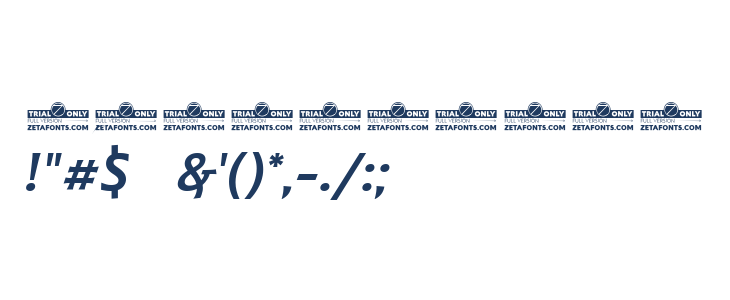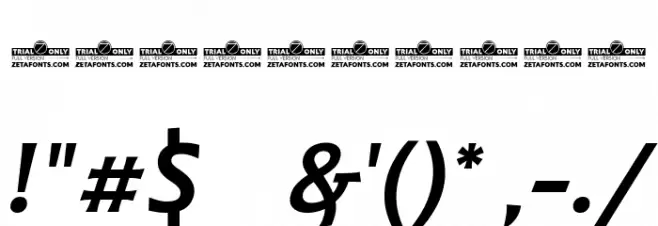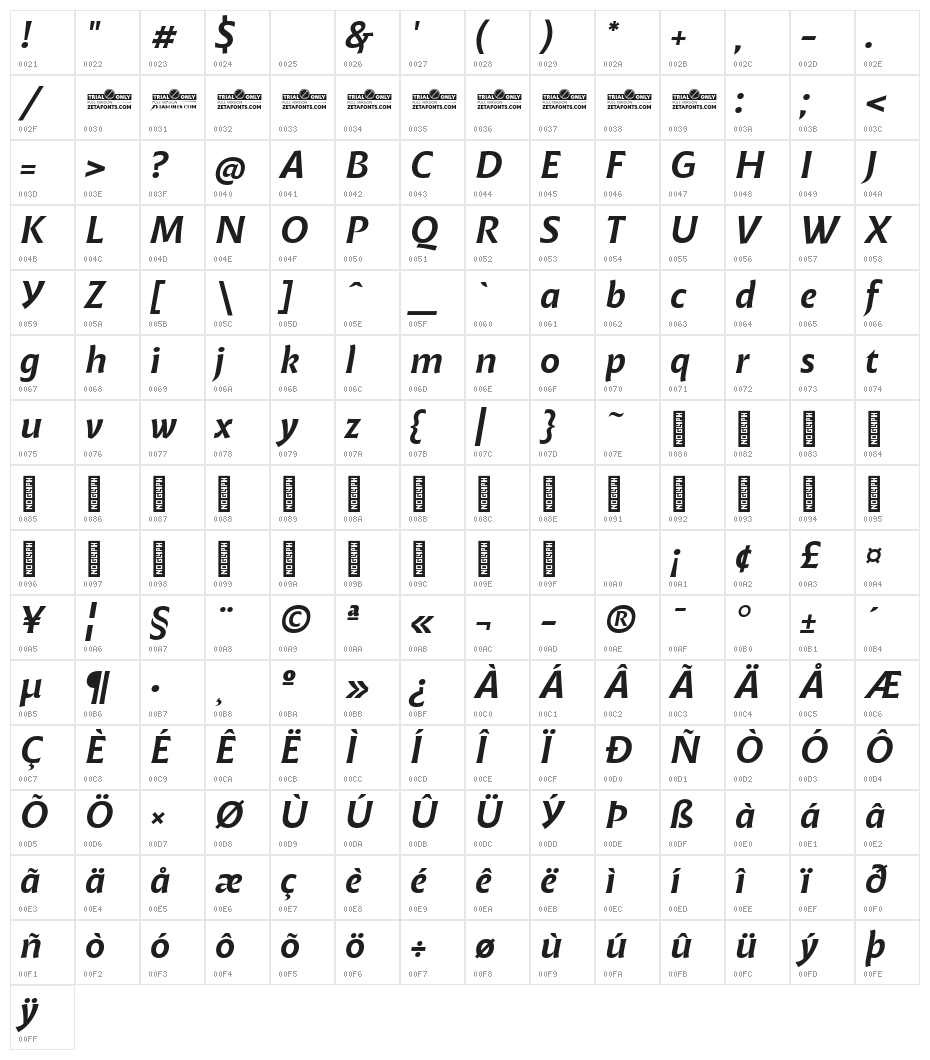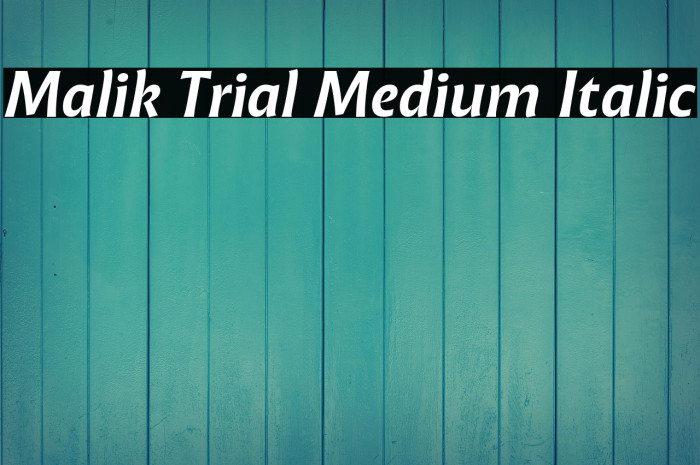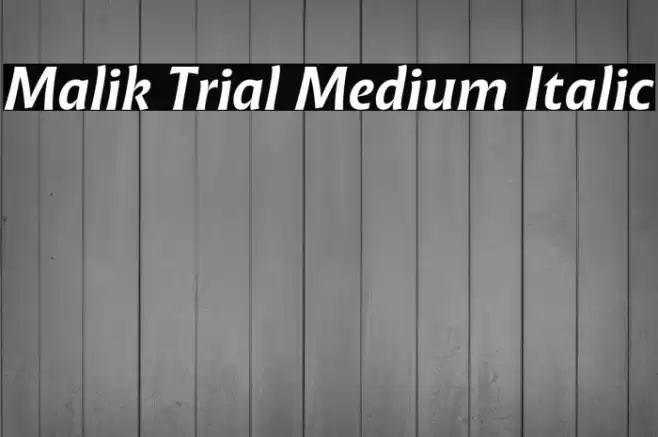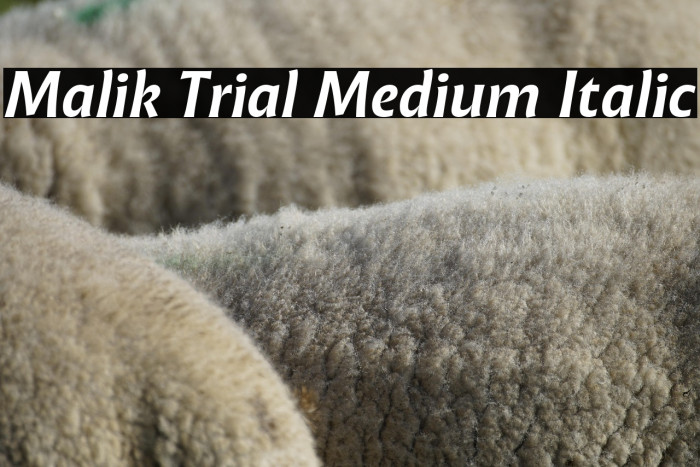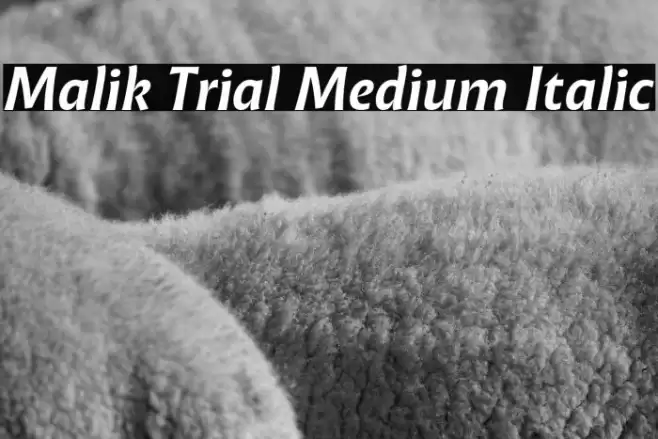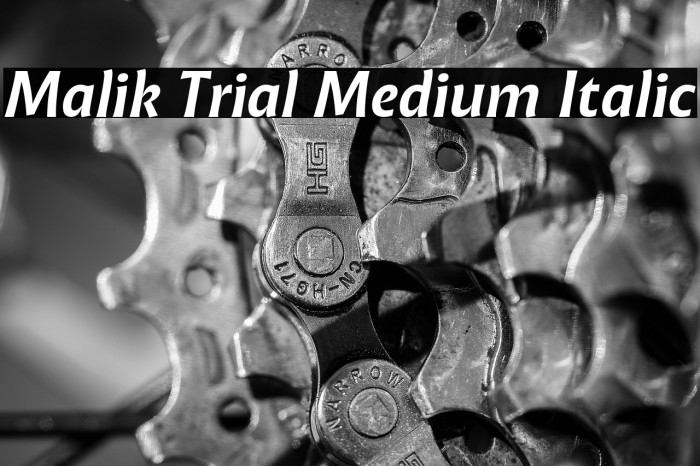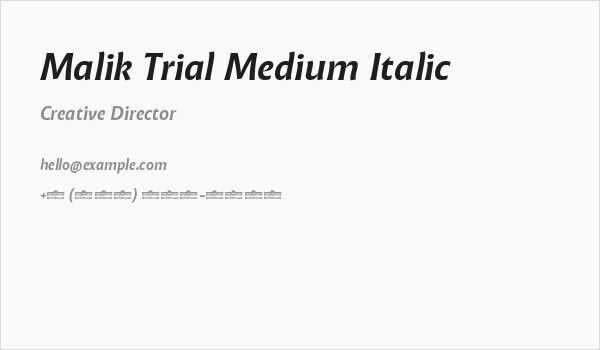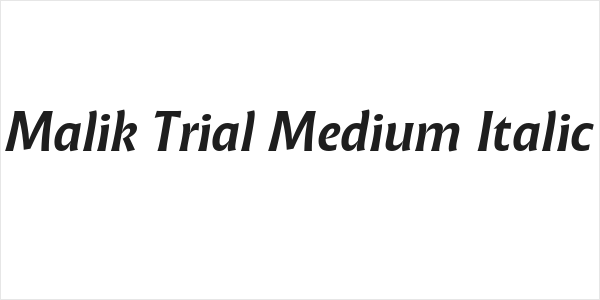
Malik Trial Medium Italic Font
Malik Trial Medium Italic Description
This font exhibits a modern and dynamic style with a slight italic slant, giving it a sense of movement and elegance. The characters are well-proportioned, with a medium weight that balances readability and style. The uppercase letters are bold and commanding, while the lowercase letters maintain a consistent flow. The numerals are clear and distinct, ensuring legibility. Special characters are designed with the same attention to detail, providing a cohesive look across all glyphs. This font is versatile, suitable for both digital and print media.